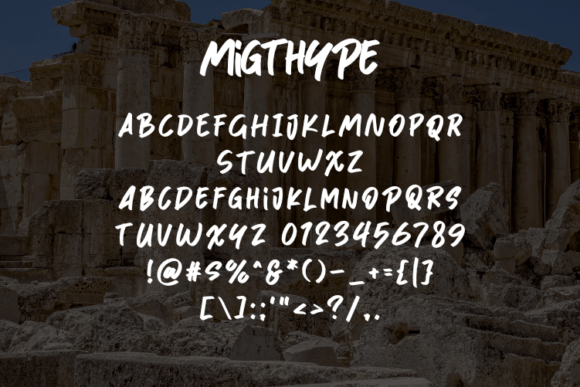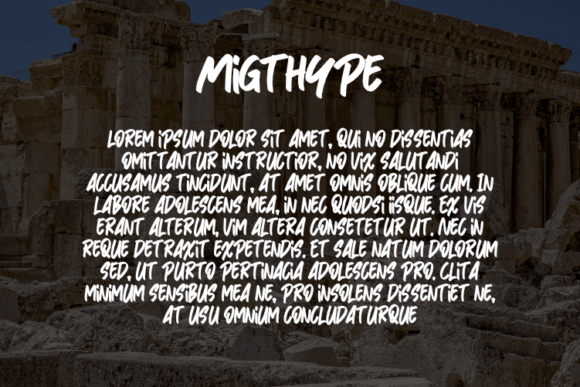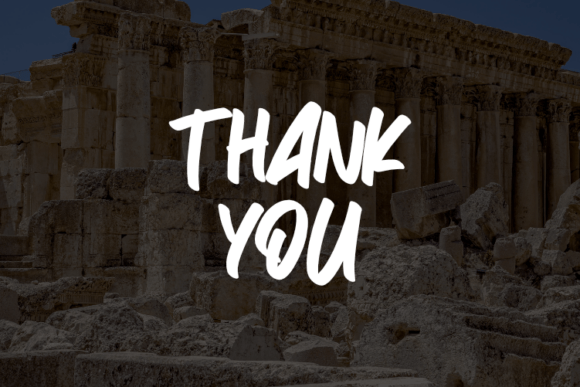
Introduction to Migthype Font
Discover Migthype, an exceptionally versatile font meticulously crafted for fashion designers and tastemakers.
This versatile typeface surges beyond conventions, adding gusto to apparel such as t-shirts, hoodies and various other products Characterized by its compatibility with all design layouts and software types, Migthype is an inclusive and adaptable choice for creative projects.
Key Features of Migthype Font